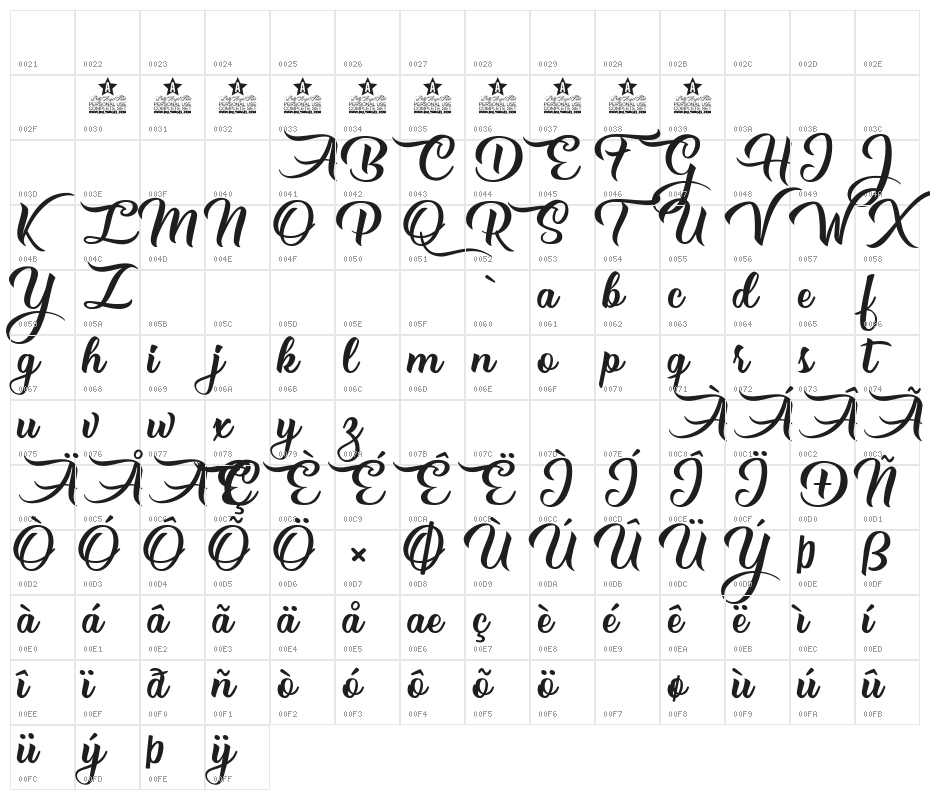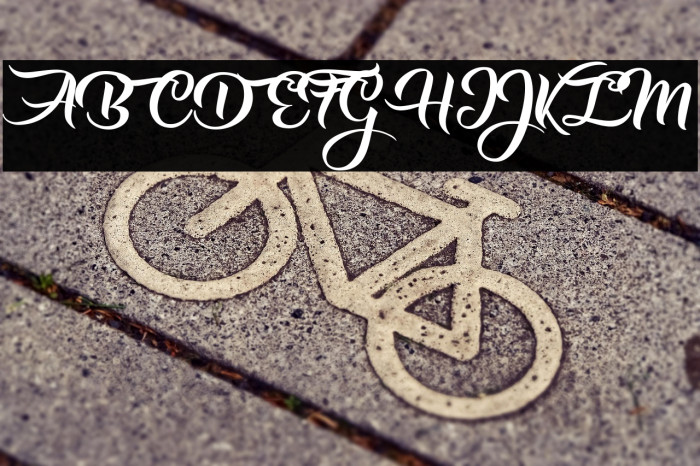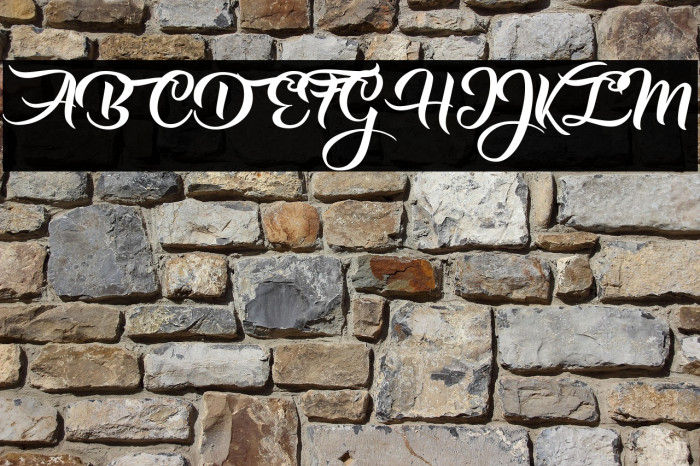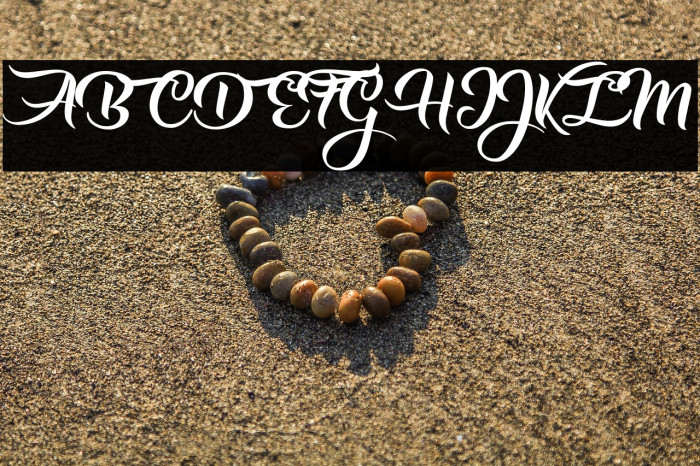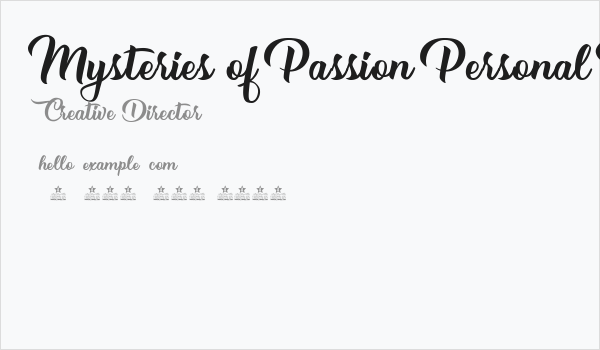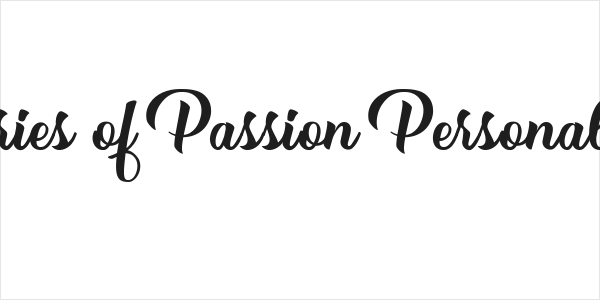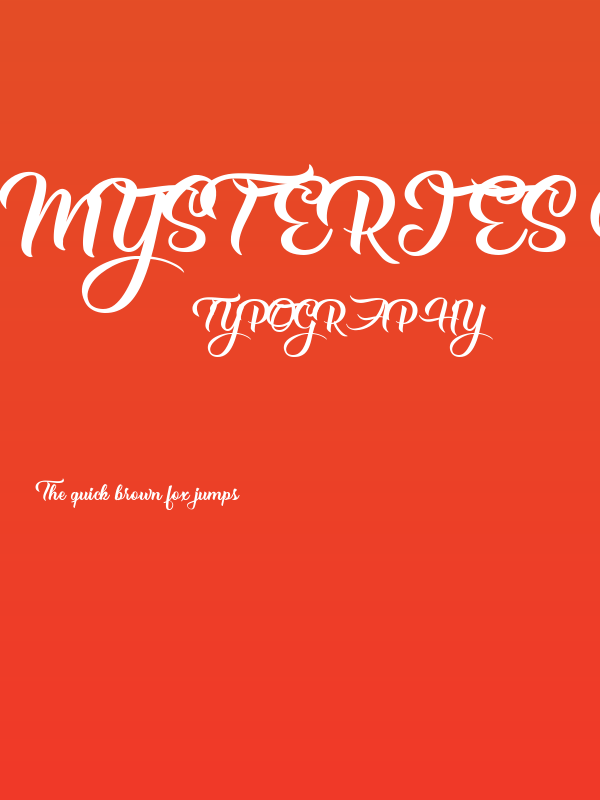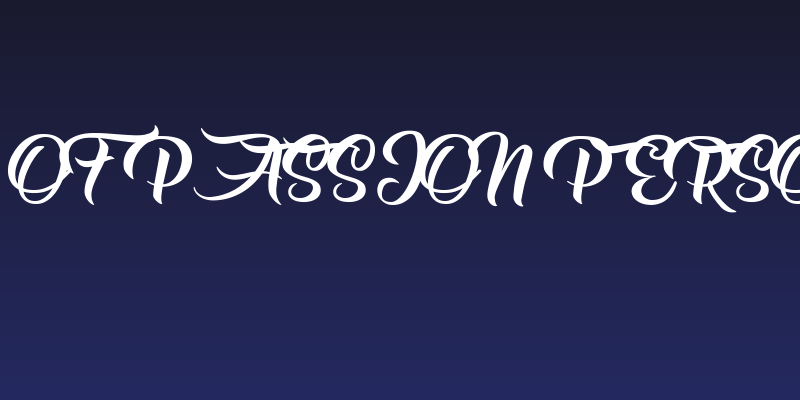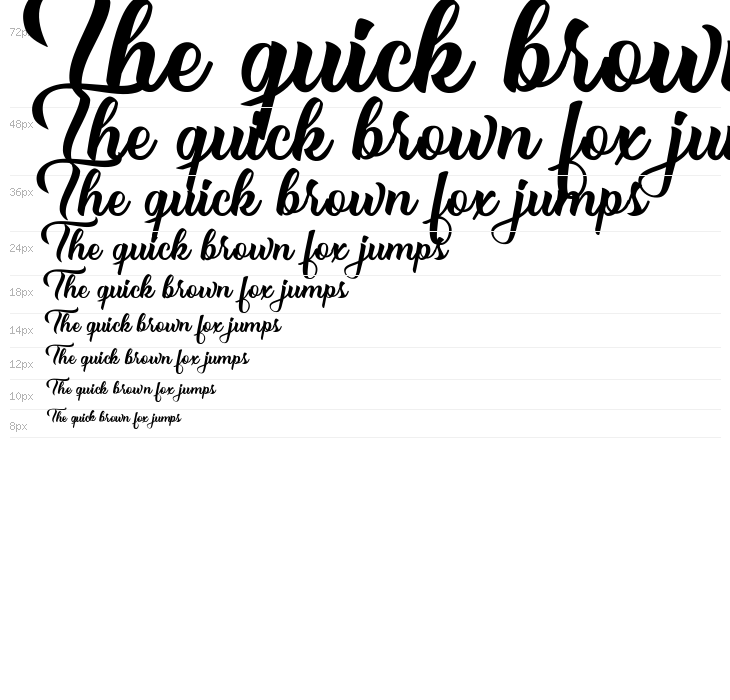
Mysteries of Passion Personal Use Font
Mysteries of Passion Personal Use Description
This font features an elegant and intricate script style, characterized by its flowing, cursive letterforms. The uppercase letters are adorned with elaborate swashes and flourishes, giving them a dramatic and artistic appearance. The lowercase letters maintain a consistent cursive style, with smooth connections between each character, enhancing readability while maintaining a decorative flair. The overall design is reminiscent of calligraphic handwriting, making it suitable for projects that require a touch of sophistication and elegance. The bold strokes and high contrast between thick and thin lines add to its visual impact, making it ideal for standout text applications.